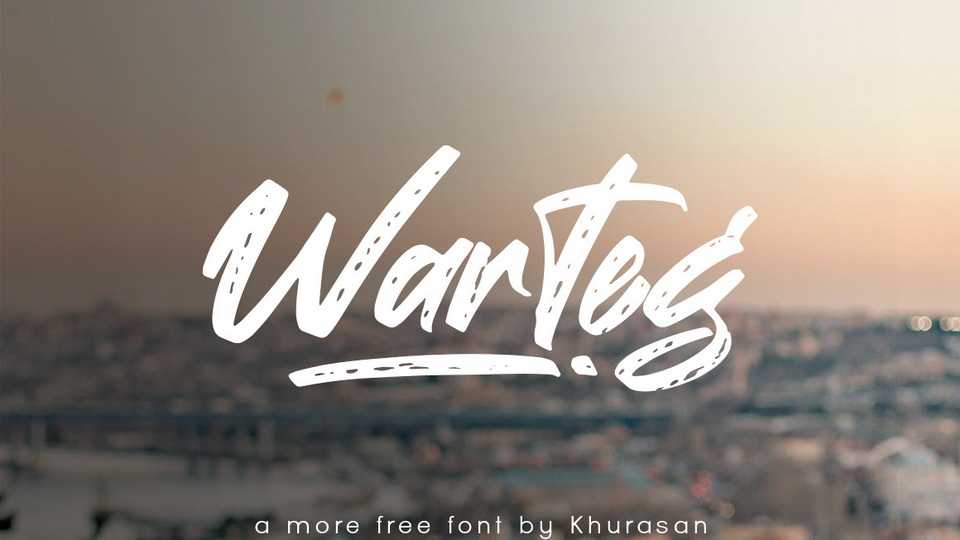
Download Warteg font, a casual brush script typeface that exudes versatility and trendiness. Warteg font was particularly crafted for those who need a beautiful and refreshing look to their designs.